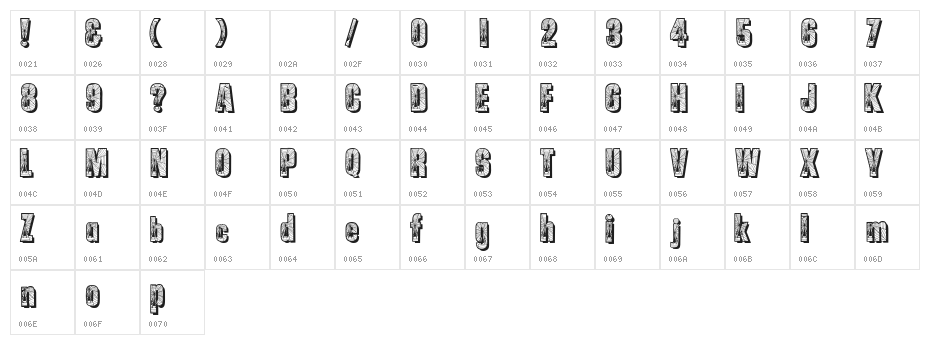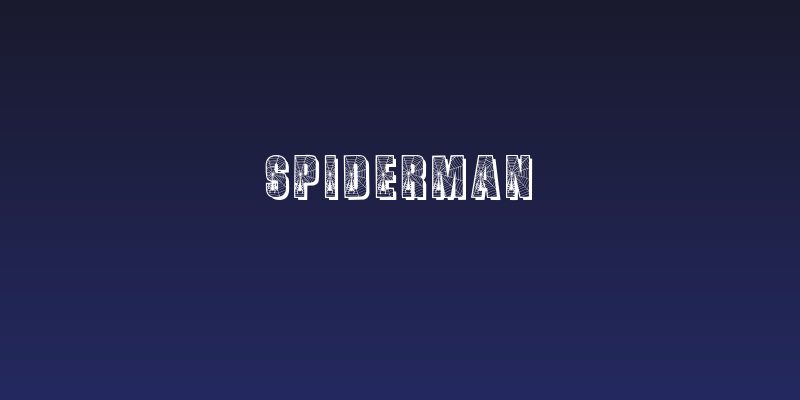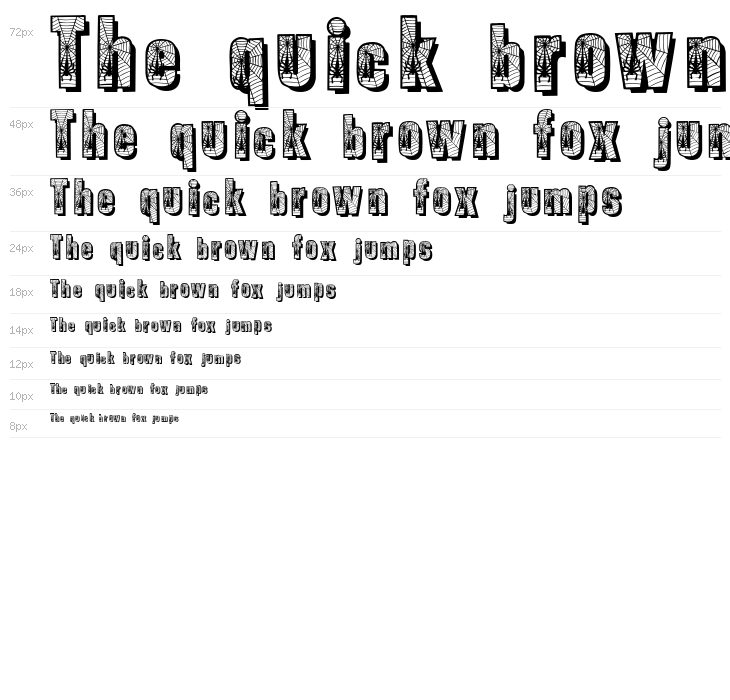
Spiderman Font
Spiderman Description
This font features a unique design inspired by a web-like pattern, reminiscent of a superhero theme. The characters are bold and have an intricate internal design that mimics the appearance of a spider's web. The uppercase and lowercase letters maintain a consistent style, with a strong emphasis on geometric shapes and lines. The numbers and special characters follow the same thematic design, making the font cohesive and visually striking. This font is perfect for projects that require a bold, thematic approach, capturing attention with its distinctive style.
| Proposed Projects | Ideal for comic book titles, themed event posters, or merchandise related to superheroes. |